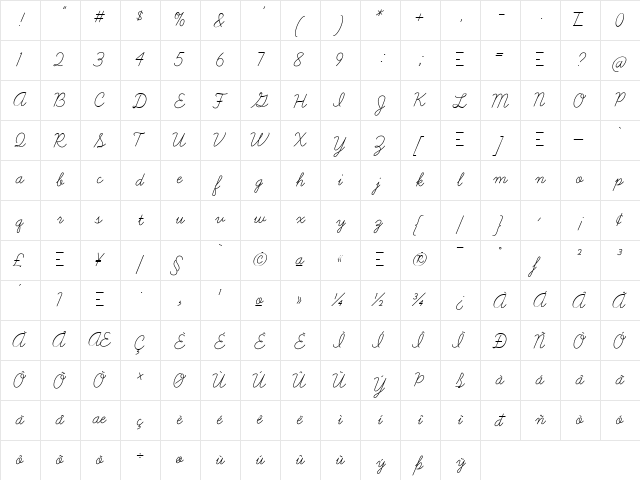
Learning Curve Regular Font Preview
Learning Curve Regular
Learning Curve Regular Font Details
| Foundry | Blue Vinyl Fonts |
| Designer | Jess Latham |
Design Context for Learning Curve Typeface
Learning Curve is a composed and adaptable typeface that performs quietly and consistently across a wide range of design contexts.